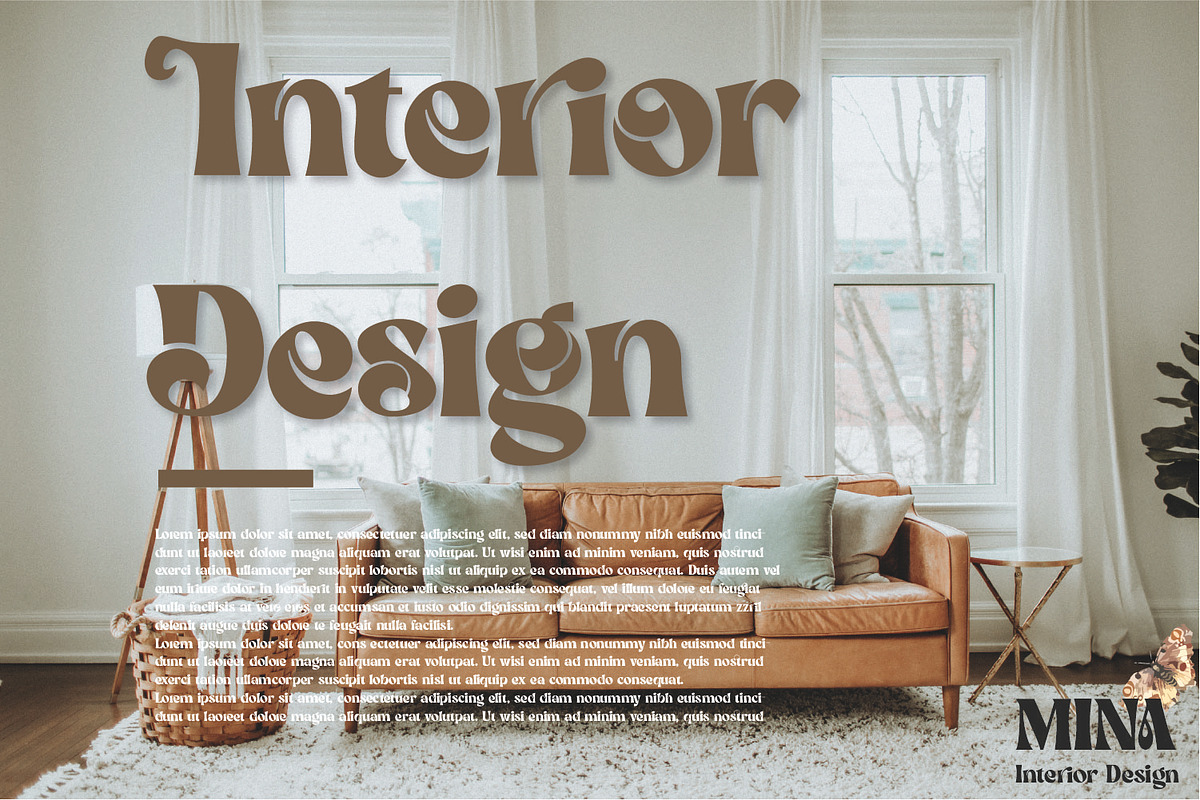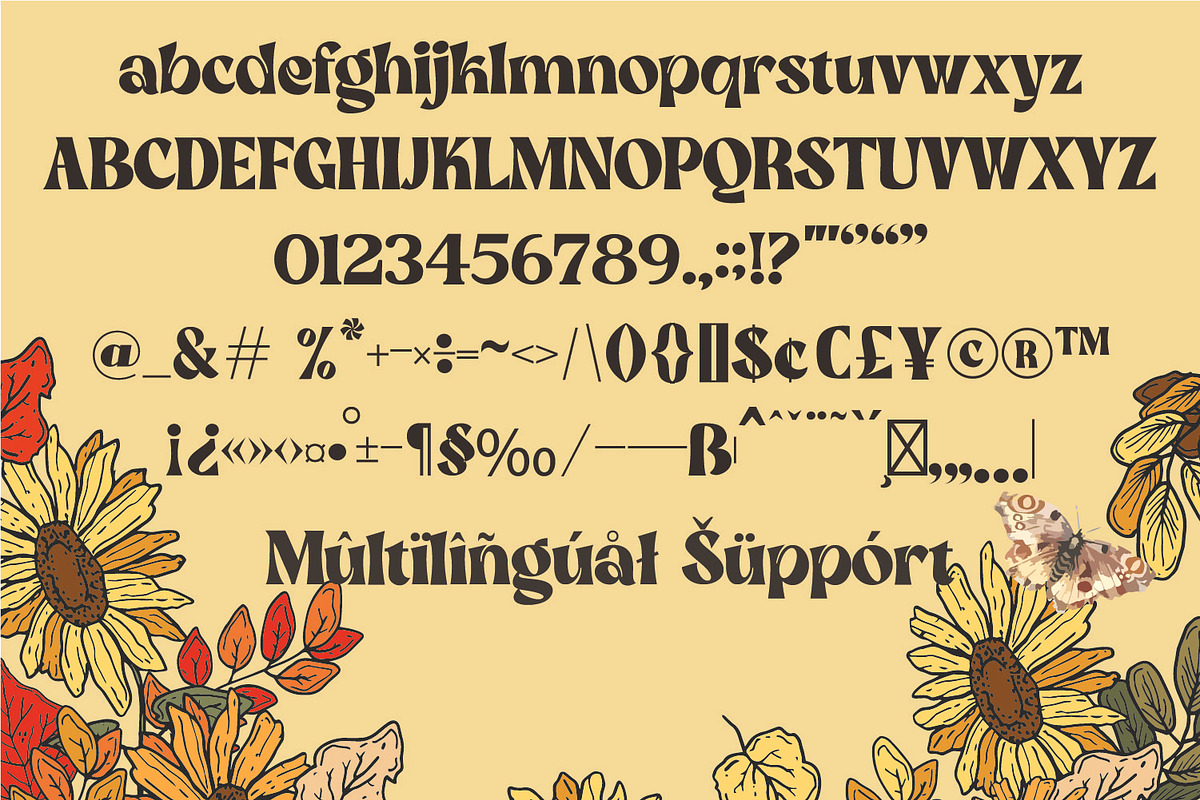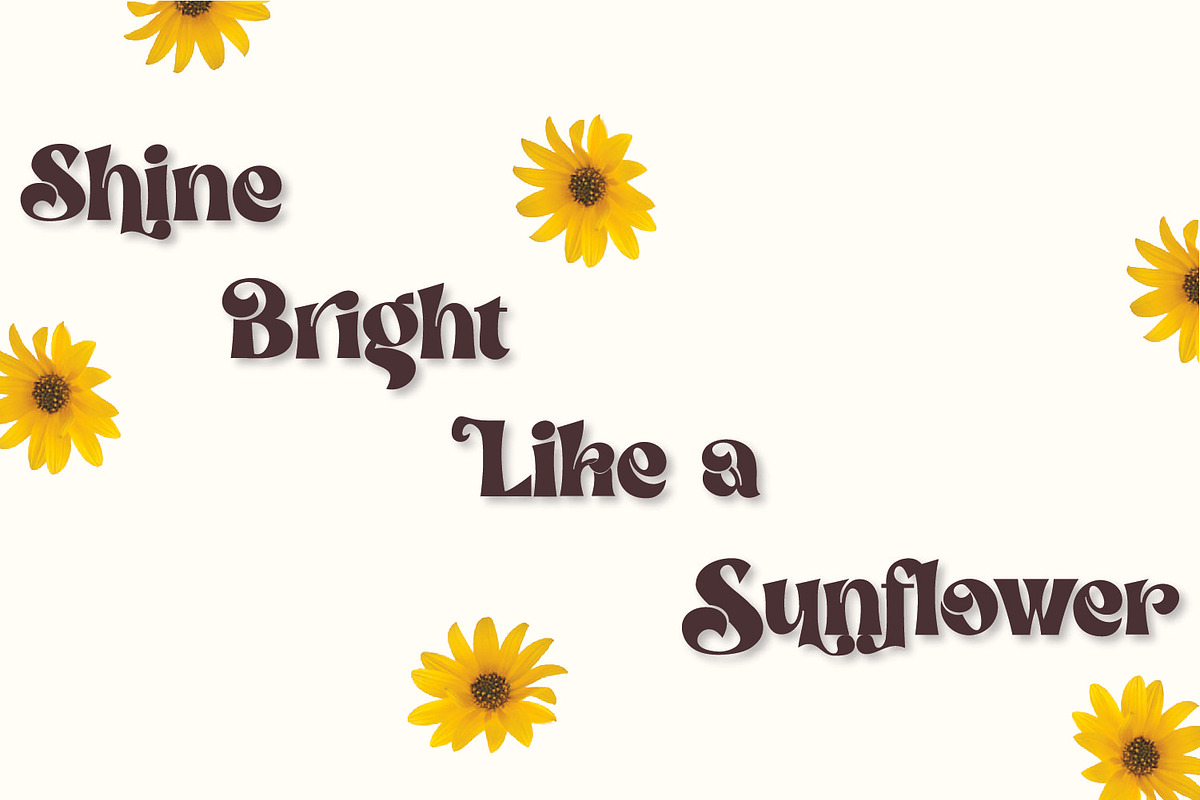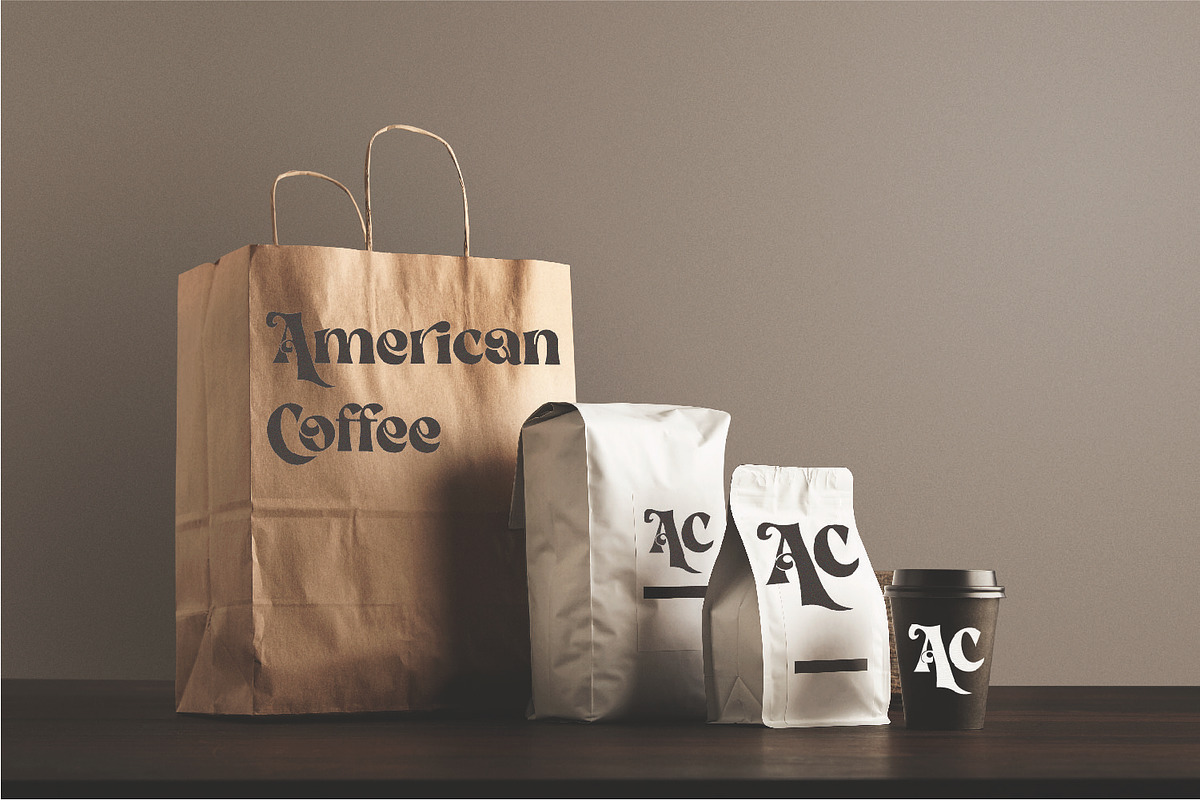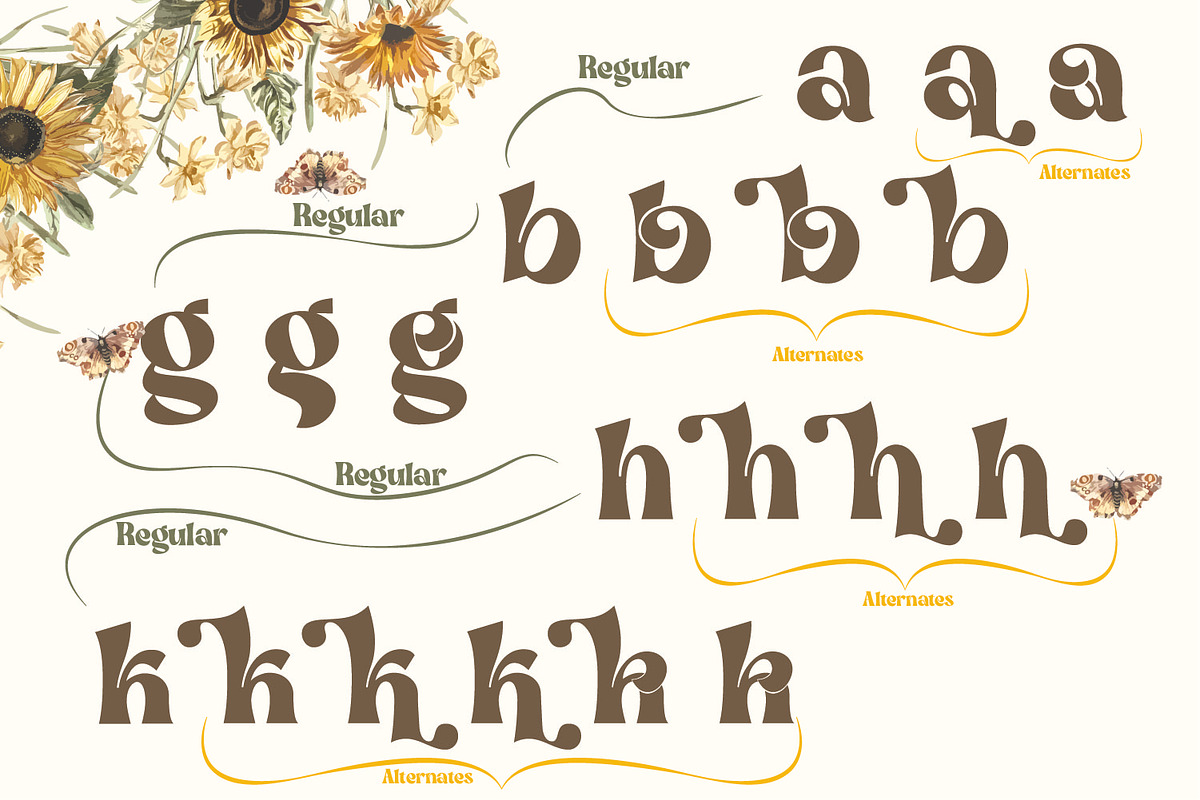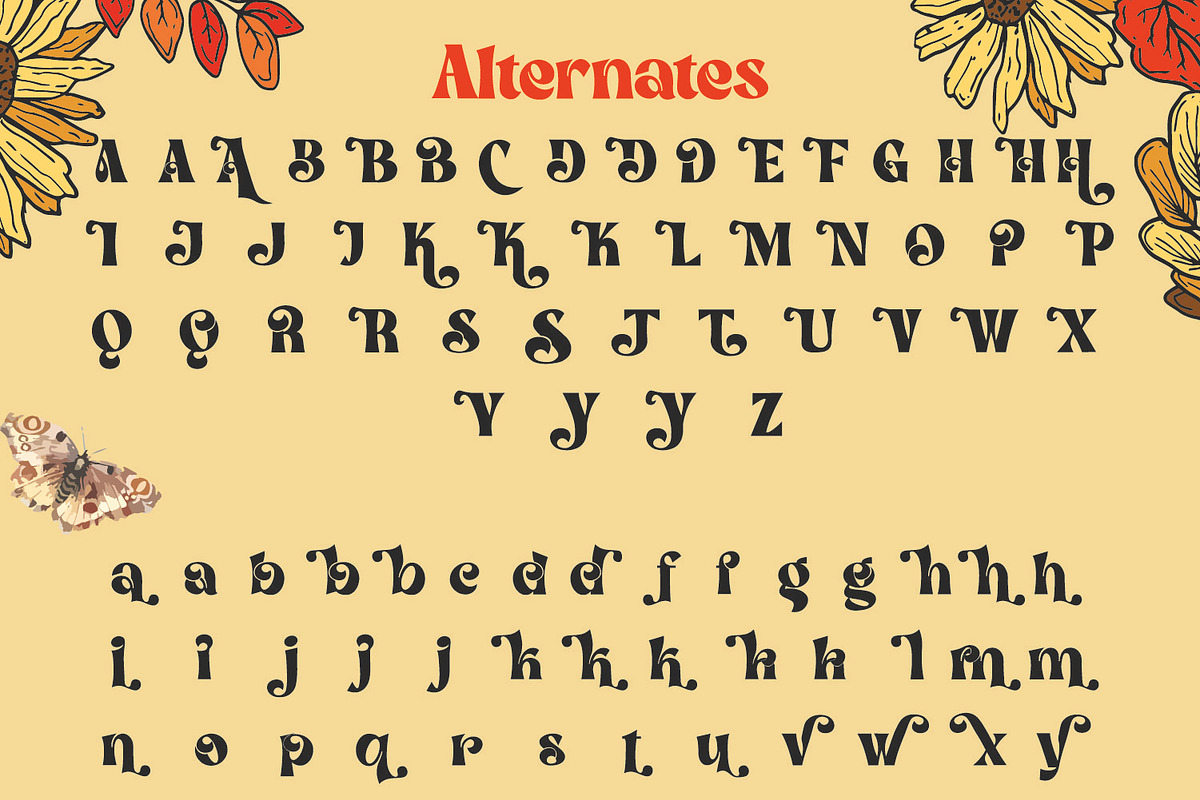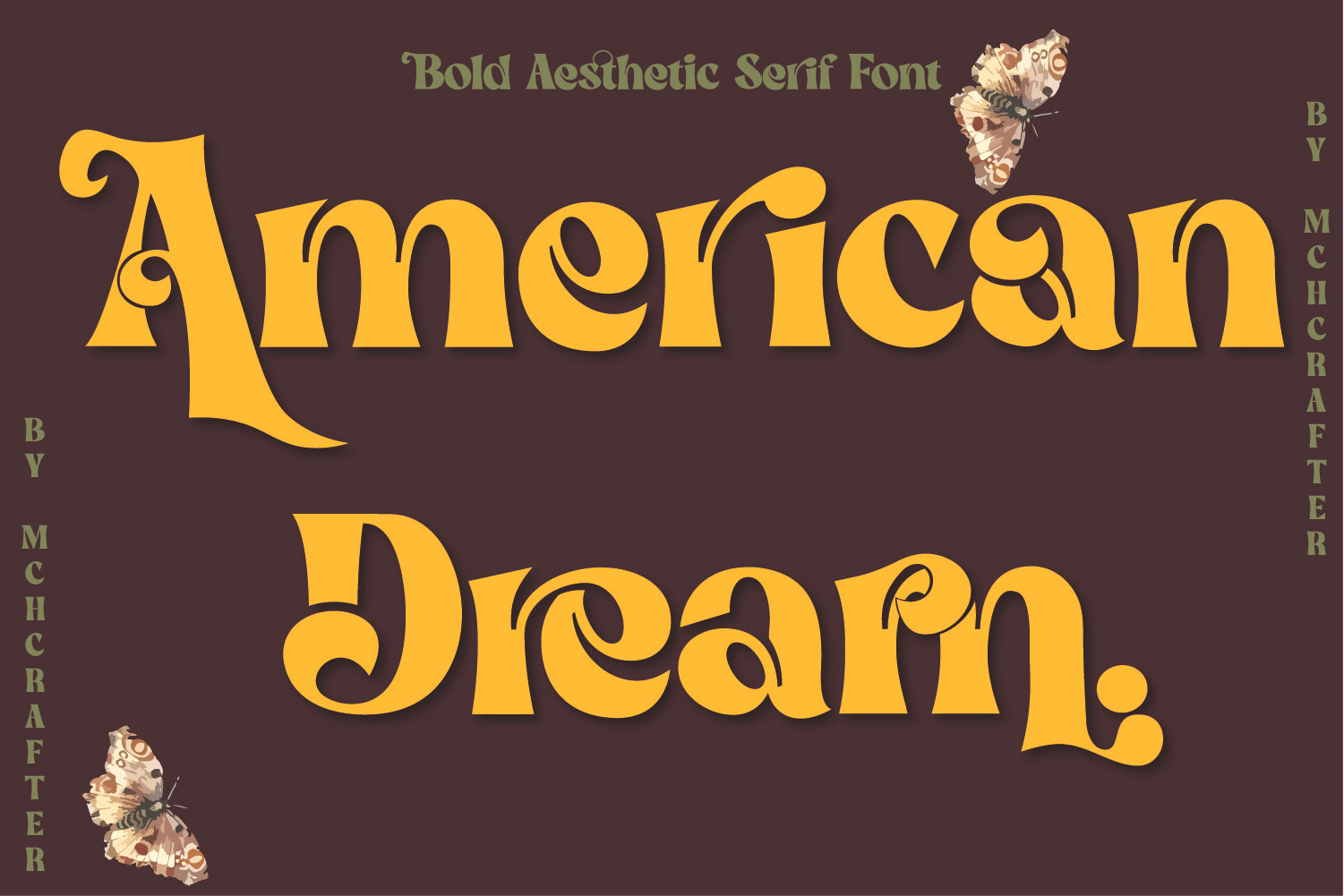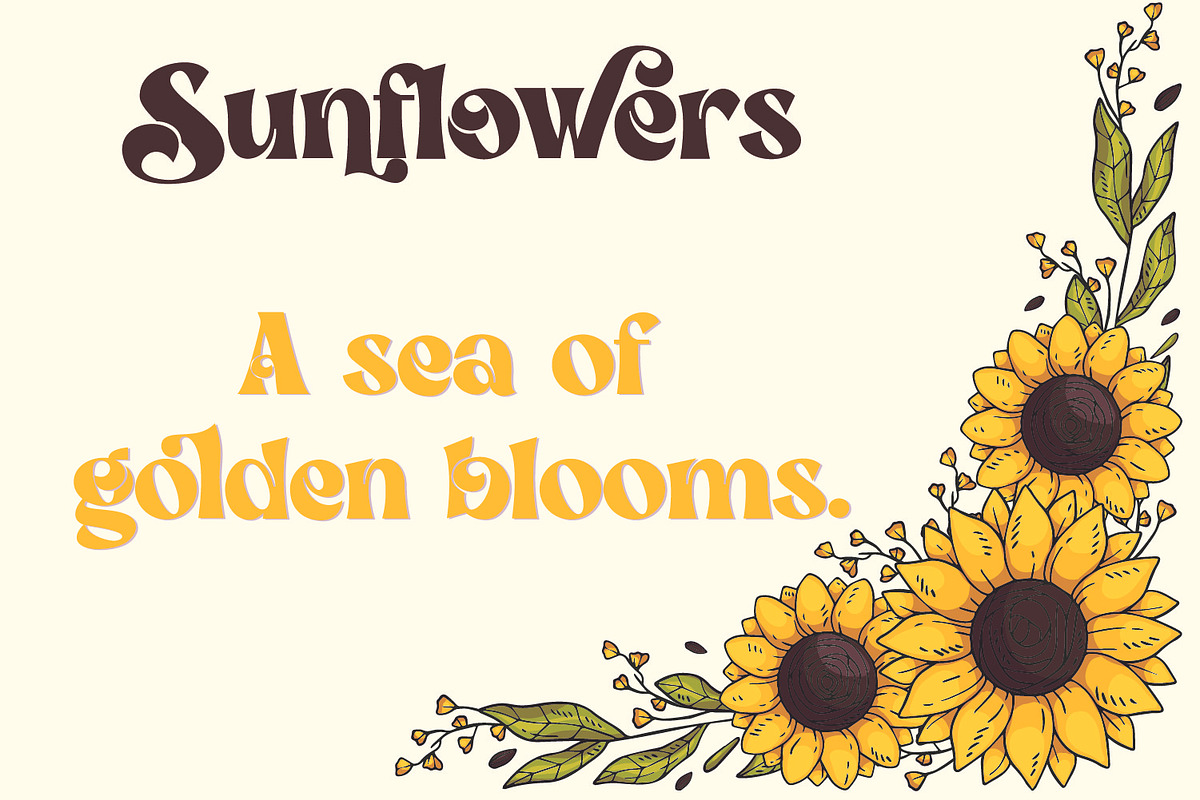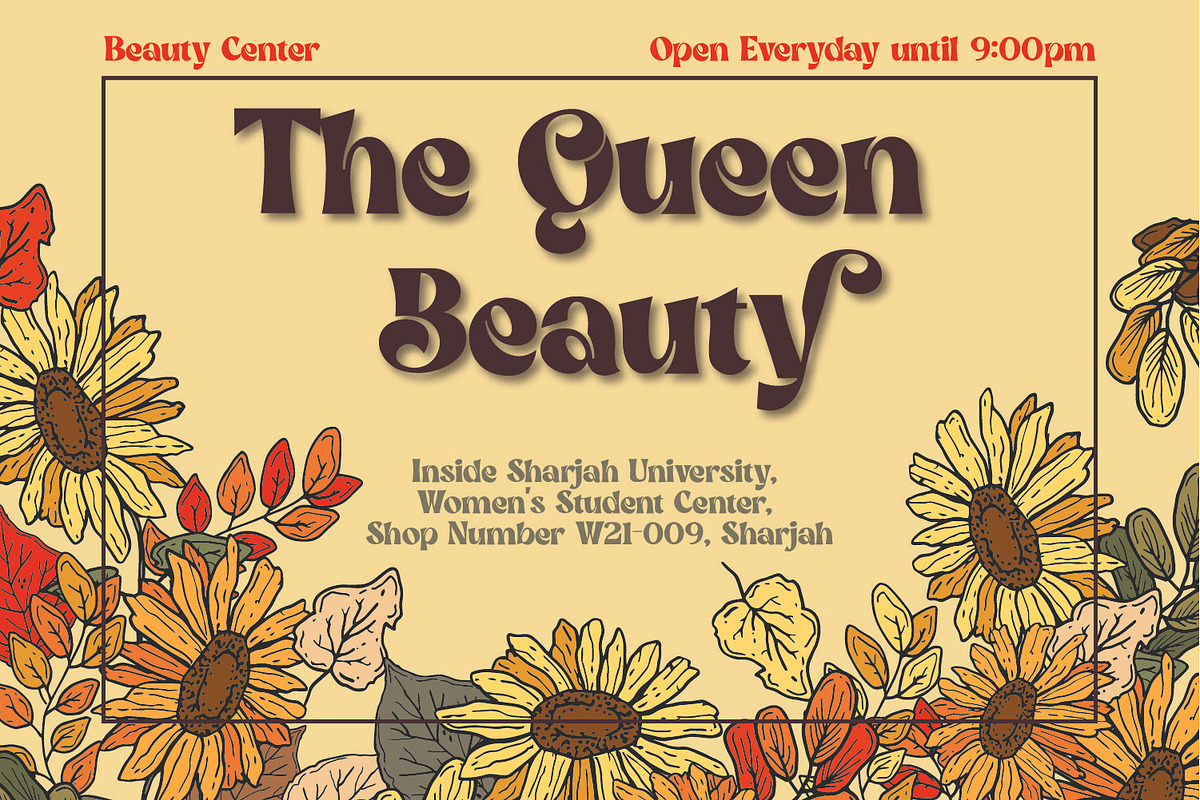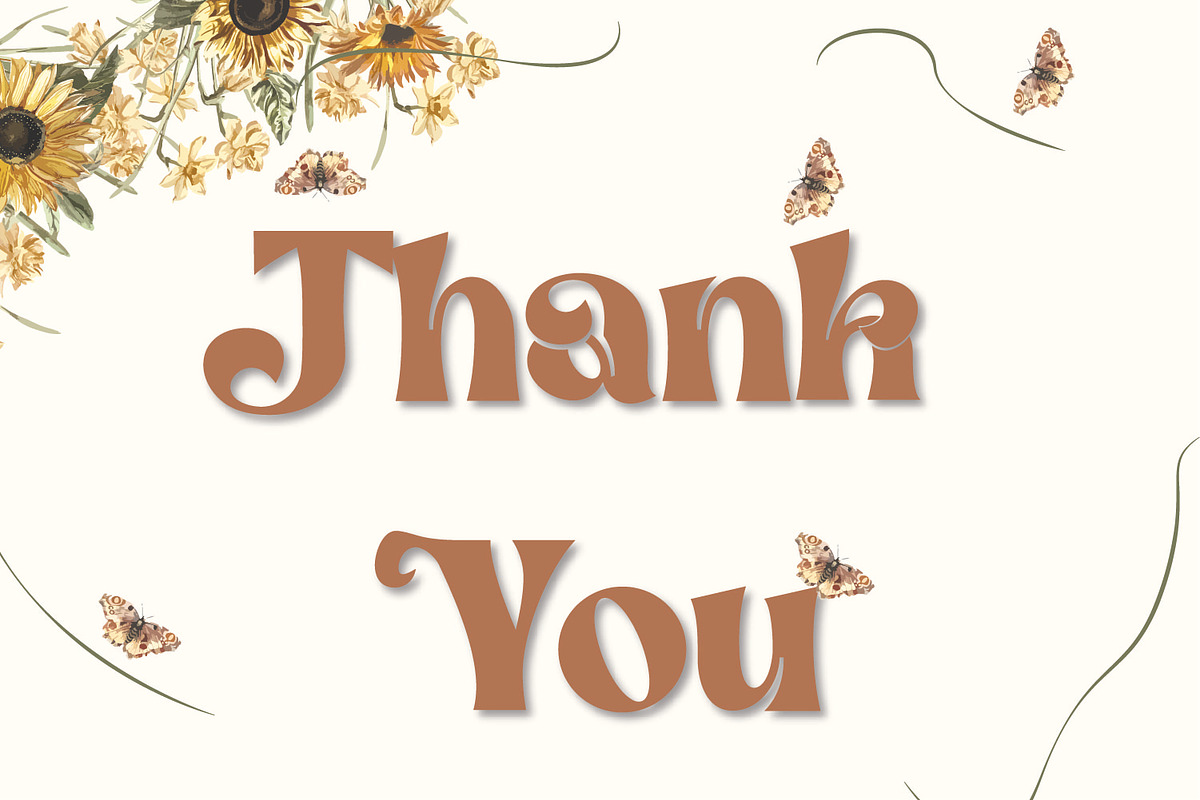
American Dream | Modern Serif Font
American Dream is a Modern Stylistic Serif typeface.
A new serif that we created especially for branding needs, with extra ligatures and alternates in a unique shape just to add value to your brand. It is so nice to leverage designers or product owners that need solutions to make their designs look more stylish and modern. And especially for American Dream font, We prepared all the ligatures, and the alternates characters to help you create unlimited variations for your creative needs.
American Dream includes:
- All uppercase & lowercase letters
- All numbers 0-9 & Punctuation
- Multilingual Letters